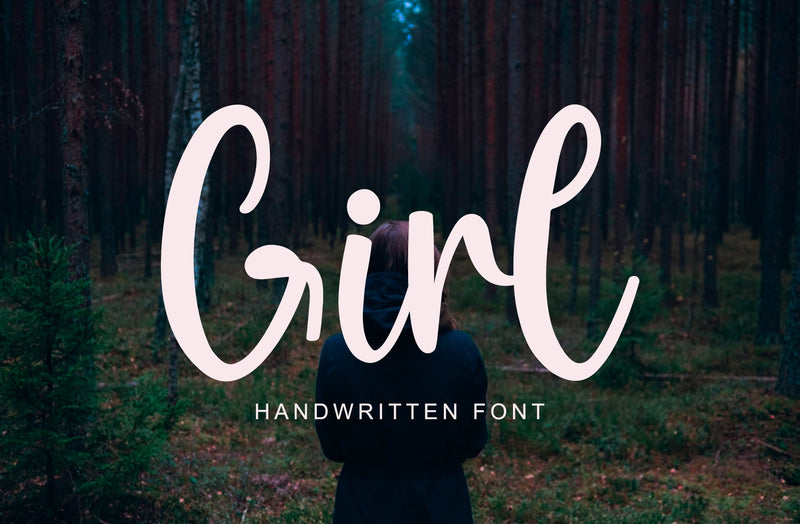
Girl - Handwritten Font
Girl is a beautiful and elegant handwritten font. Its casual charm makes it appear wonderfully down-to-earth, readable, and incredibly versatile. The Girl will look outstanding in any context, whether it’s being used on busy backgrounds or as a standalone headline!